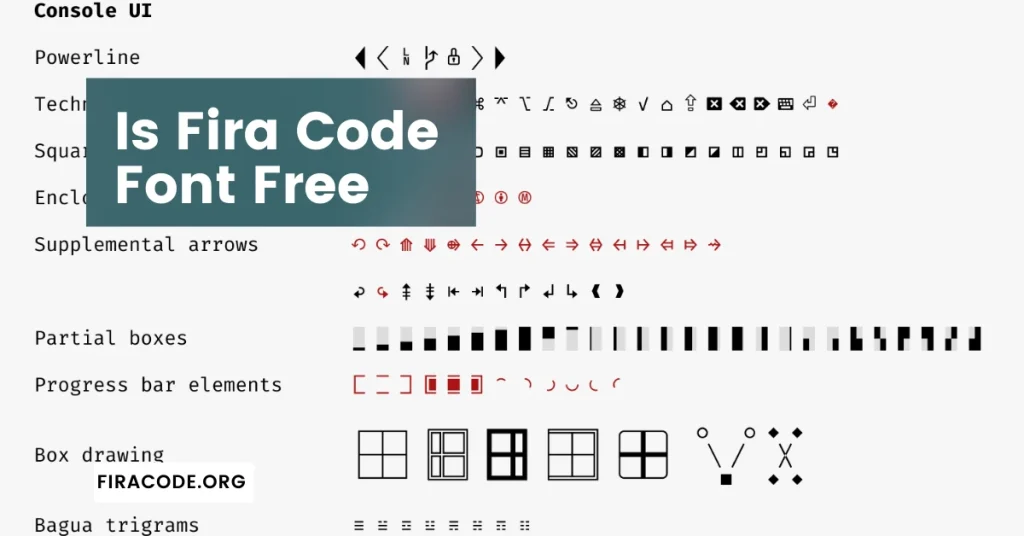
In the dynamic realm of digital typography, selecting the right font is crucial for both aesthetics and functionality. Fira Code has gained significant attention in recent times, captivating the interest of developers and designers alike.
Before diving into the cost aspect, let’s explore what makes FiraCode stand out in the vast sea of fonts. Developed by Nikita Prokopov, Fira Code is an extension of the Fira Mono font family.
Its unique selling point lies in the integration of programming ligatures – a feature that enhances code readability by combining characters into meaningful symbols.
This accessibility has contributed to Fira Code’s widespread adoption within the coding and programming communities.
The Versatility of Fira Code: Beyond the Price Tag
While the cost of Fira Code is undoubtedly appealing (considering it’s free), its popularity extends beyond its affordability. The FiraCode ligature in spacemacs support enhances code legibility, fostering a more seamless coding experience. Developers appreciate the visual clarity and the reduction of visual noise, ultimately leading to increased productivity.
Fira Code’s Impact on SEO
In the ever-evolving landscape of SEO, the choice of font may not be the first factor that comes to mind. However, considering the importance of user experience in search engine algorithms, the readability and visual appeal of your content matter.
Fira Code’s unique ligatures contribute to better code presentation, indirectly influencing the user experience and potentially boosting your SEO rankings.
The Verdict
In conclusion, Fira Code is a gem in the world of coding fonts, and the best part is, it comes at no cost. Its open-source nature, coupled with the SIL Open Font License, makes it an attractive choice for developers and designers seeking a visually pleasing and functional font for their projects.
As you embark on your coding journey, consider making Fira Code a part of your toolkit, enhancing both the aesthetics and readability of your code.
Remember, in the realm of programming, where every character matters, Fira Code stands out as a testament to the power of thoughtful typography. Embrace the freedom, enhance your coding experience, and let Fira Code be the silent yet impactful companion in your digital endeavors.
FAQS (Frequently Asked Questions)
Q#1: Is Fira Code font free to use for personal and commercial projects?
Yes, Fira Code is free and open-source. It is released under the SIL Open Font License (OFL), which allows you to use, modify, and distribute the font for personal and commercial purposes. This license ensures that the font remains freely available and can be shared and adapted by the community.
Q#2: Can I use Fira Code in my web projects without any restrictions?
Absolutely! Fira Code can be freely used in web projects. You can include the font in your CSS stylesheets or use it in any other web-related context without worrying about licensing issues. Just make sure to check and comply with the terms of the SIL Open Font License to ensure proper usage and attribution.